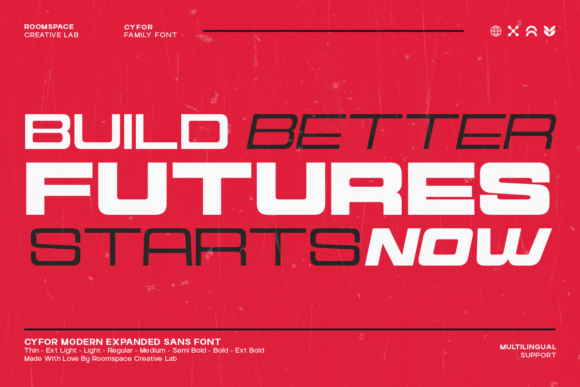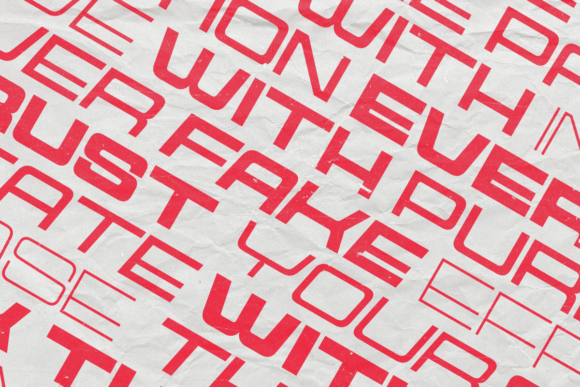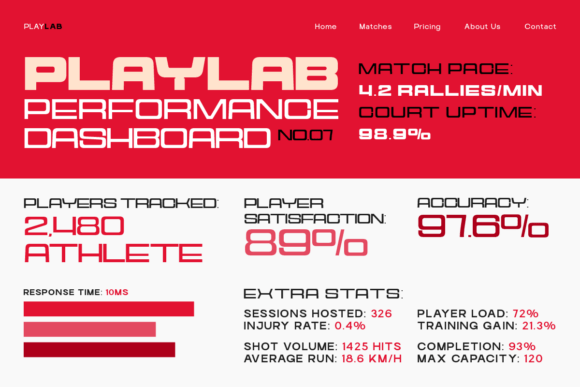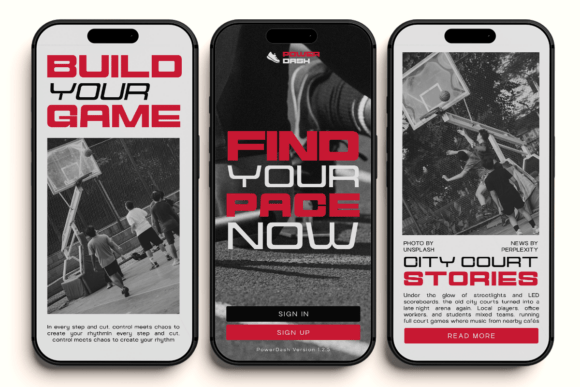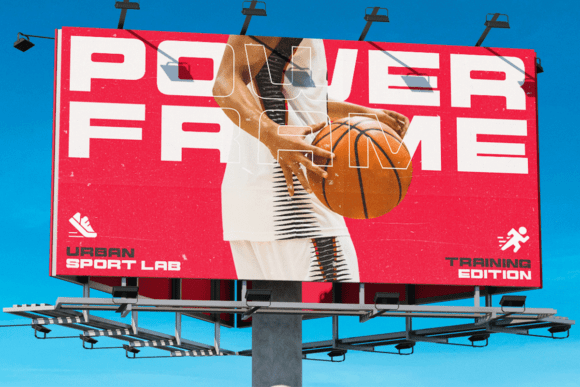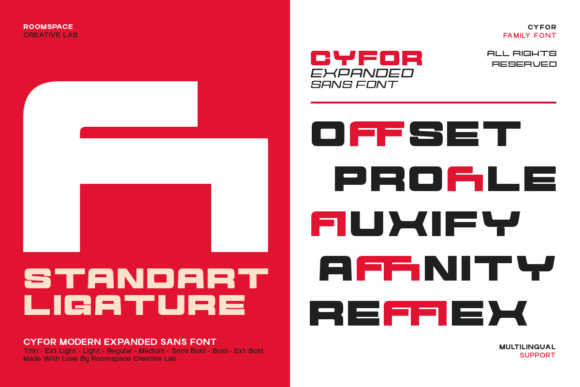
Introduction to Cyfor Font
Imagine you’re working on a creative project, pouring your heart and soul into a concept that’s been brewing in your mind for weeks. The design is almost there, but something’s missing – a font that perfectly captures the essence of your vision. That’s where Cyfor Font comes in, a game-changing typeface that elevates your design to new heights. This bold, futuristic expanded sans-serif family is the perfect solution for designers looking to make a statement.
With its clean geometric shapes and expanded proportions, Cyfor Font offers a wide and powerful typographic presence that’s ideal for branding, posters, packaging, gaming graphics, and digital design. Whether you’re working on a tech project or a corporate design, this versatile typeface provides exceptional clarity and powerful visual impact across all its styles.
Honest Review: Cyfor Font
As a designer, I’ve had the pleasure of working with various fonts, but recently I had the chance to try out the Cyfor Font. My experience with it was quite interesting, and I’d like to share my honest review with you.
- ✨ High-quality design: The Cyfor Font has a sleek and modern look that makes it perfect for creative projects.
- ✨ Transparent background: This feature is a huge plus, as it allows for easy blending with other design elements.
- ⚠️ Limited character set: Unfortunately, the font doesn’t support a wide range of languages, which might be a concern for designers working on international projects.
- ⚠️ Not ideal for large text: While it looks great for smaller text, the Cyfor Font can become blurry and hard to read when used for larger text.
Overall, I’d say the Cyfor Font is a solid addition to any designer’s toolkit, especially for creative projects that require a modern and sleek look. However, it’s essential to keep in mind its limitations and use it accordingly.
Tips for Getting the Most Out of Cyfor Font
To get the most out of the Cyfor Font, use it with a transparent background to create a striking visual effect. You can also experiment with different font sizes and colors to add depth and interest to your design.
The Cyfor Font is a versatile design resource that can be used in a variety of creative projects, including logos, posters, and social media graphics. It’s also a great choice for creating high-quality presentations and documents.